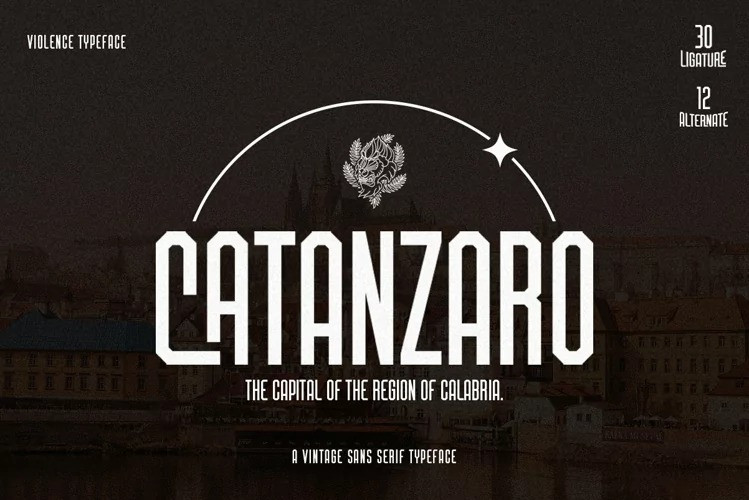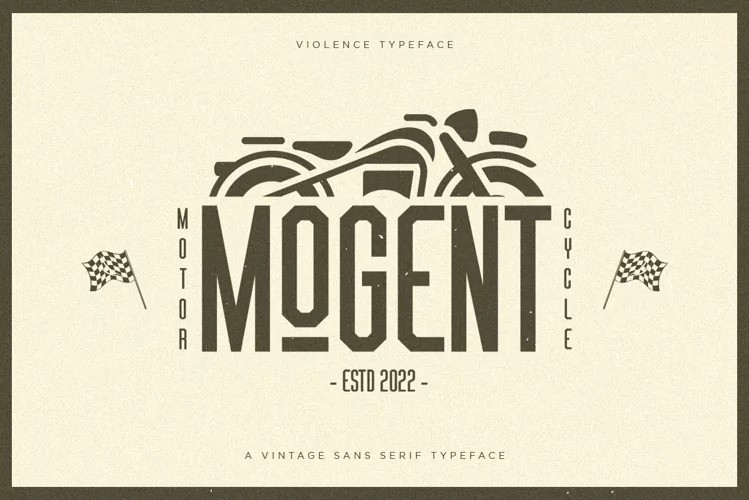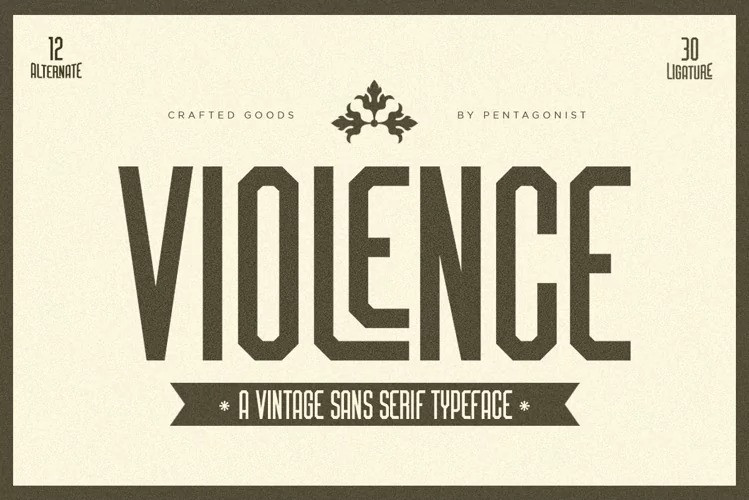
Violence Font
Looking for a unique, stylish, and fun font for your next project? Grab our new font Violence Sans Serif Font is vintage sans serif inspired by retro font.